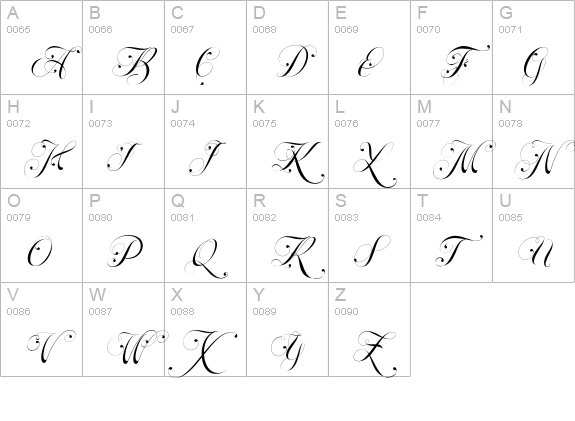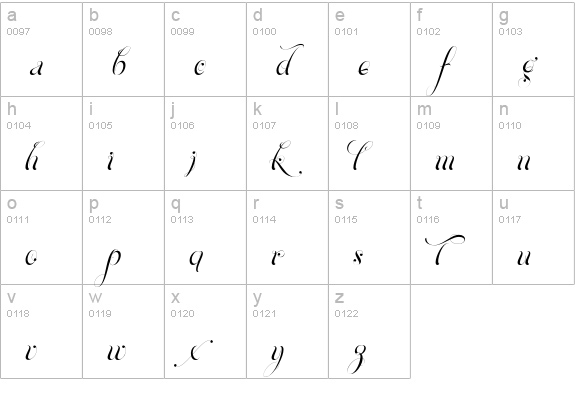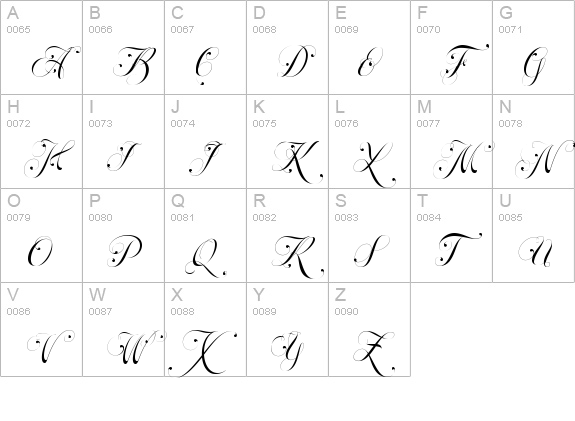
Parfait Script Titling Font Details
Parfait Script Titling font is a graceful and elegant typeface that exudes sophistication and charm. With its flowing script style and delicate curves, this font is perfect for adding a touch of luxury to your designs. Whether you're creating wedding invitations, branding materials, or elegant packaging, Parfait Script Titling will make your text stand out with its timeless appeal. Best of all, this stunning font is available for free download at FontsMarket.com. Embrace the beauty of Parfait Script Titling and elevate your projects with its graceful and refined aesthetic.